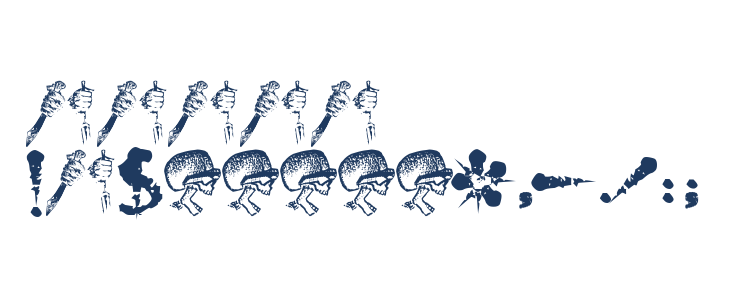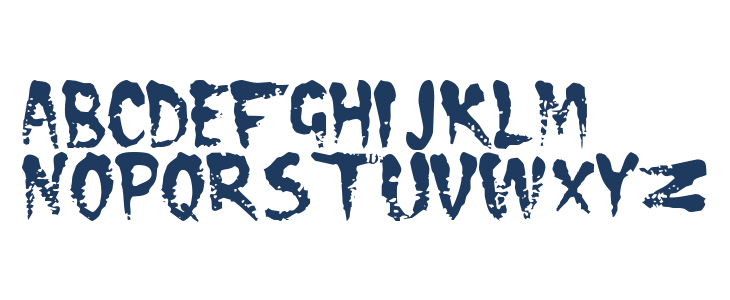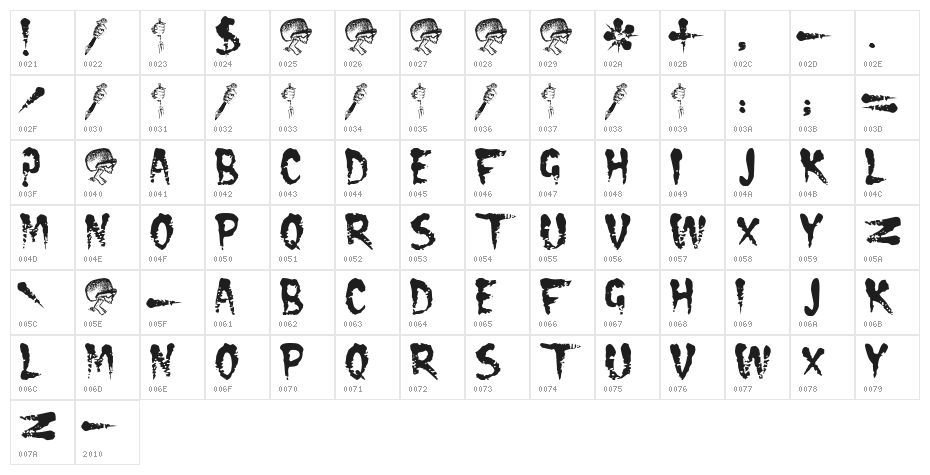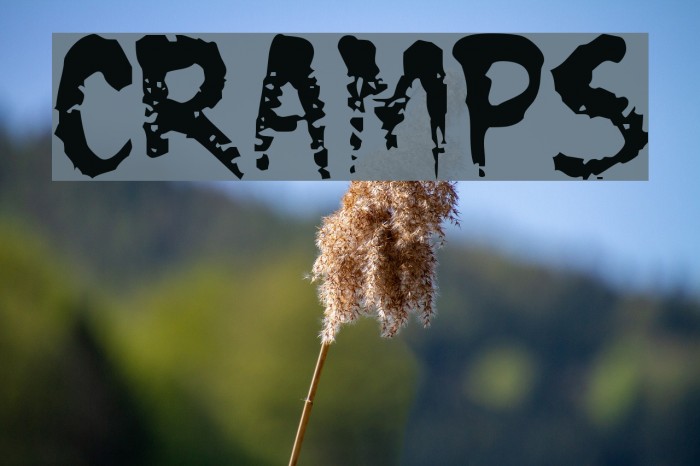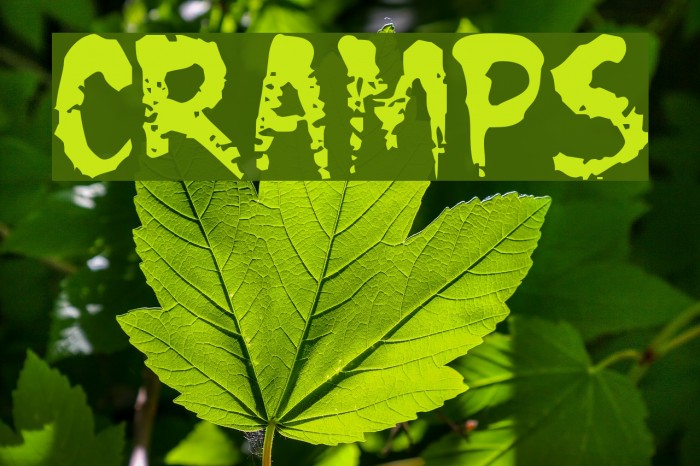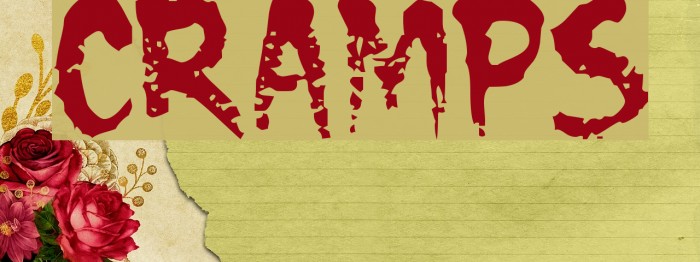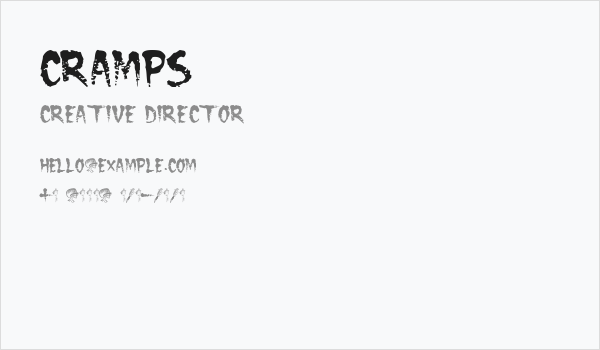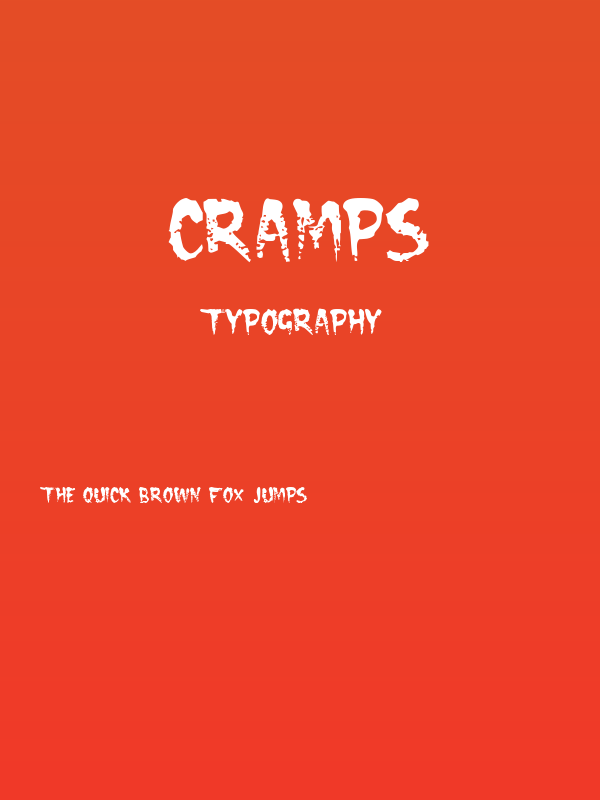
CRAMPS Font
CRAMPS Description
This font features a gritty, distressed style with a horror-themed aesthetic. The uppercase and lowercase letters are heavily textured, resembling splatters or decay, which gives them a chaotic and unsettling appearance. The characters are bold and impactful, making them stand out with a sense of urgency and intensity. The font includes unique special characters that enhance its eerie theme, such as hands holding knives and skulls, adding to its distinctive and thematic design. This font is ideal for projects that require a dramatic and edgy look, such as horror movie posters, Halloween event flyers, or any design that aims to evoke a sense of fear or suspense.
Proposed ProjectsHorror movie posters, Halloween event flyers, spooky-themed merchandise, or any design needing a dramatic, edgy look.